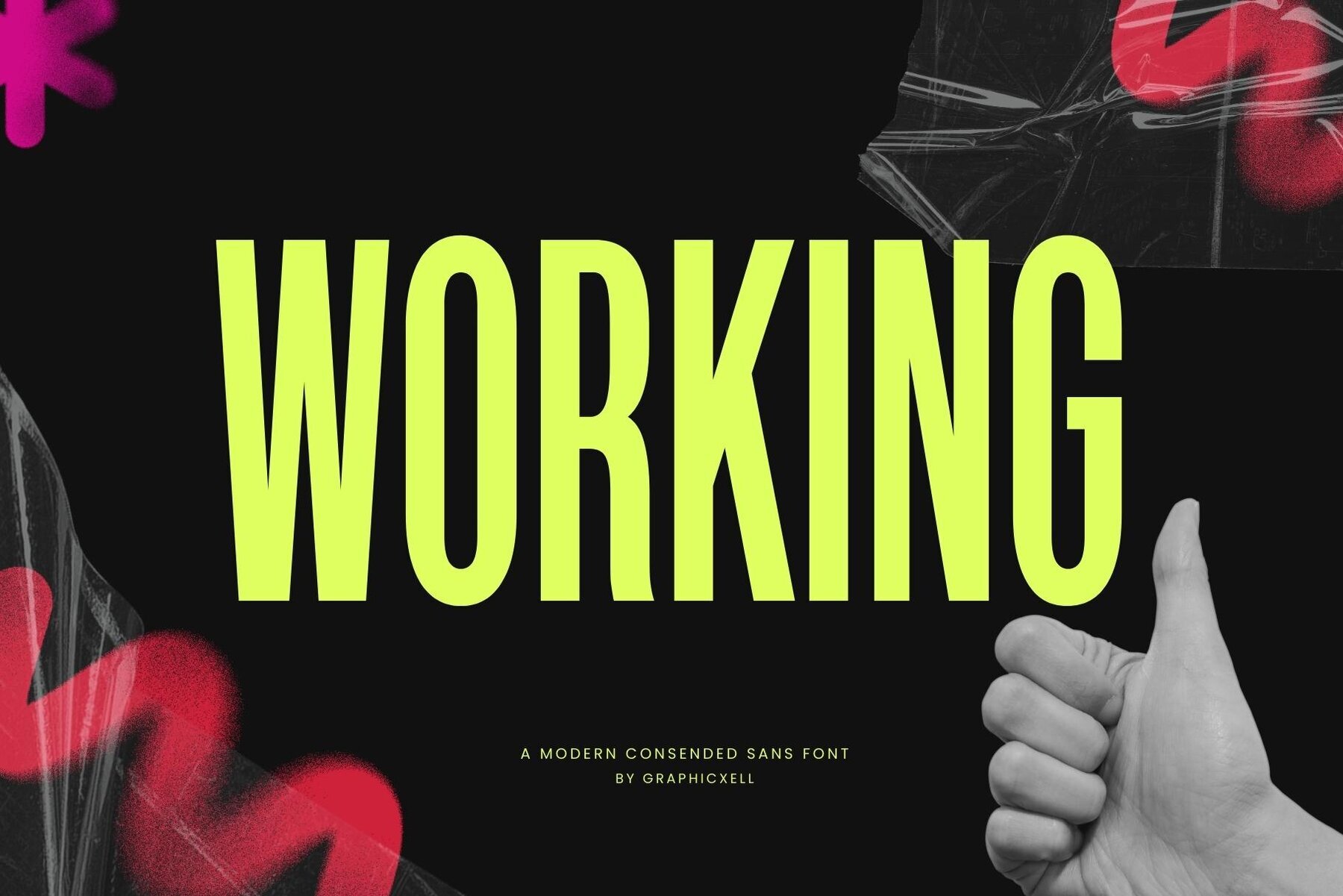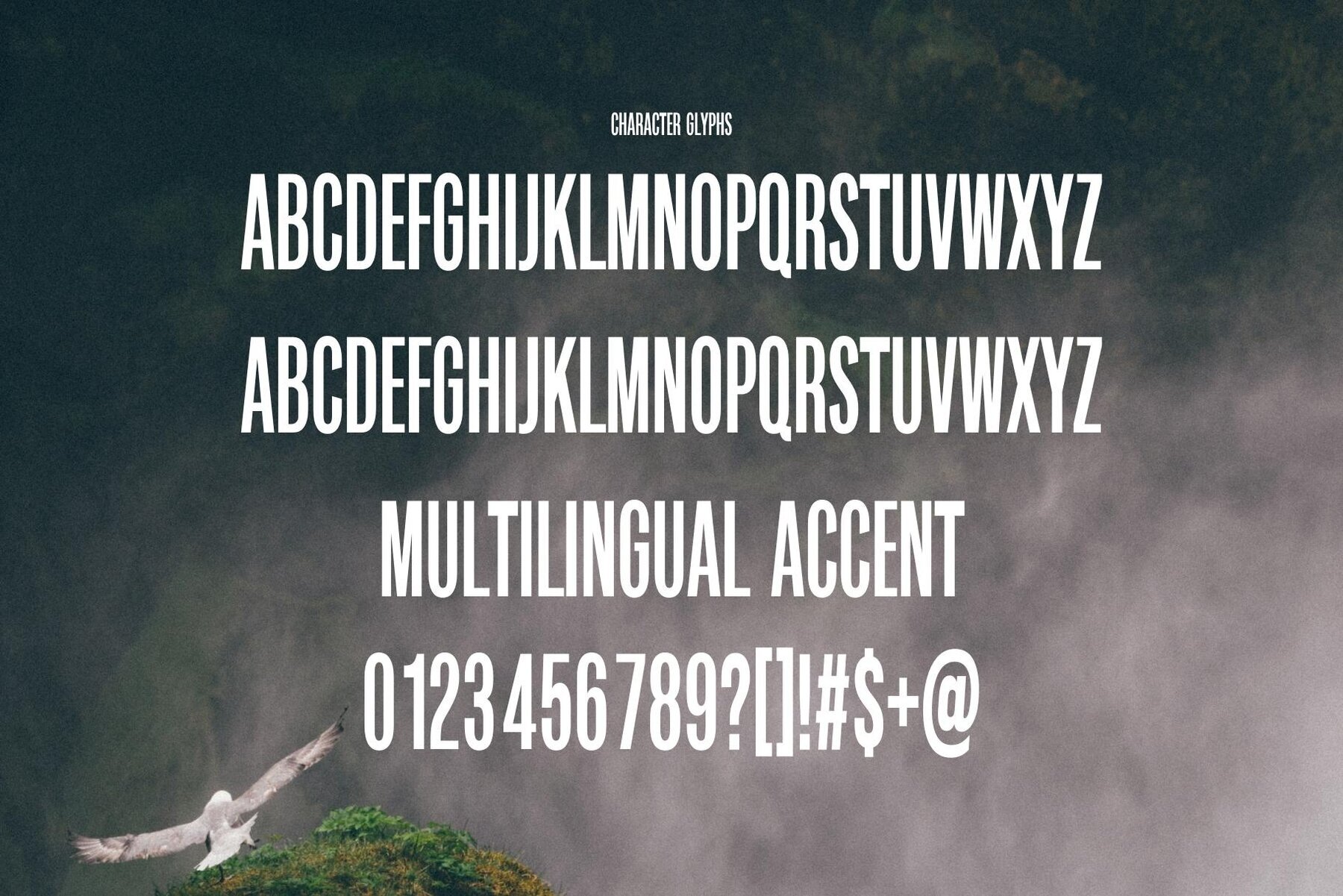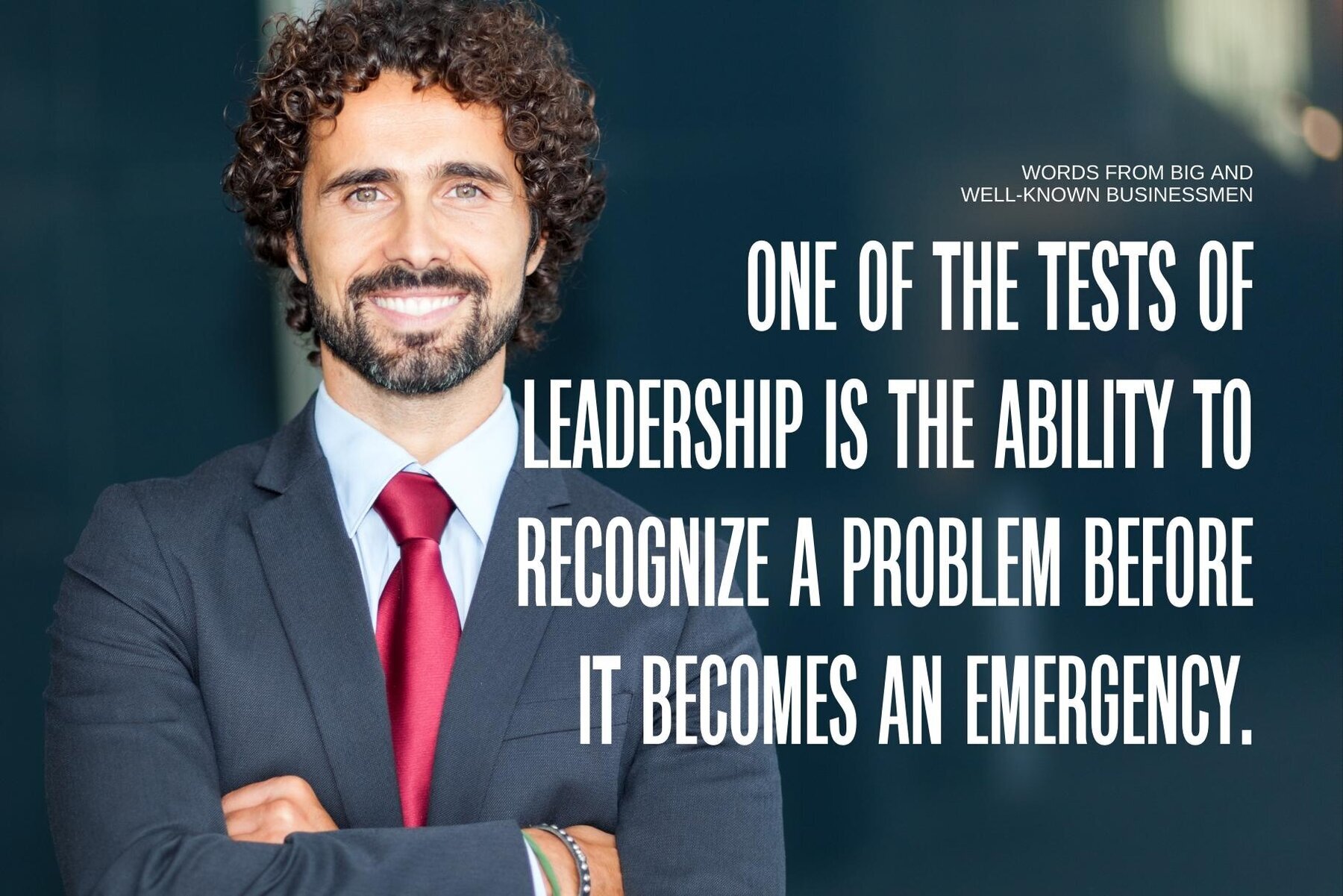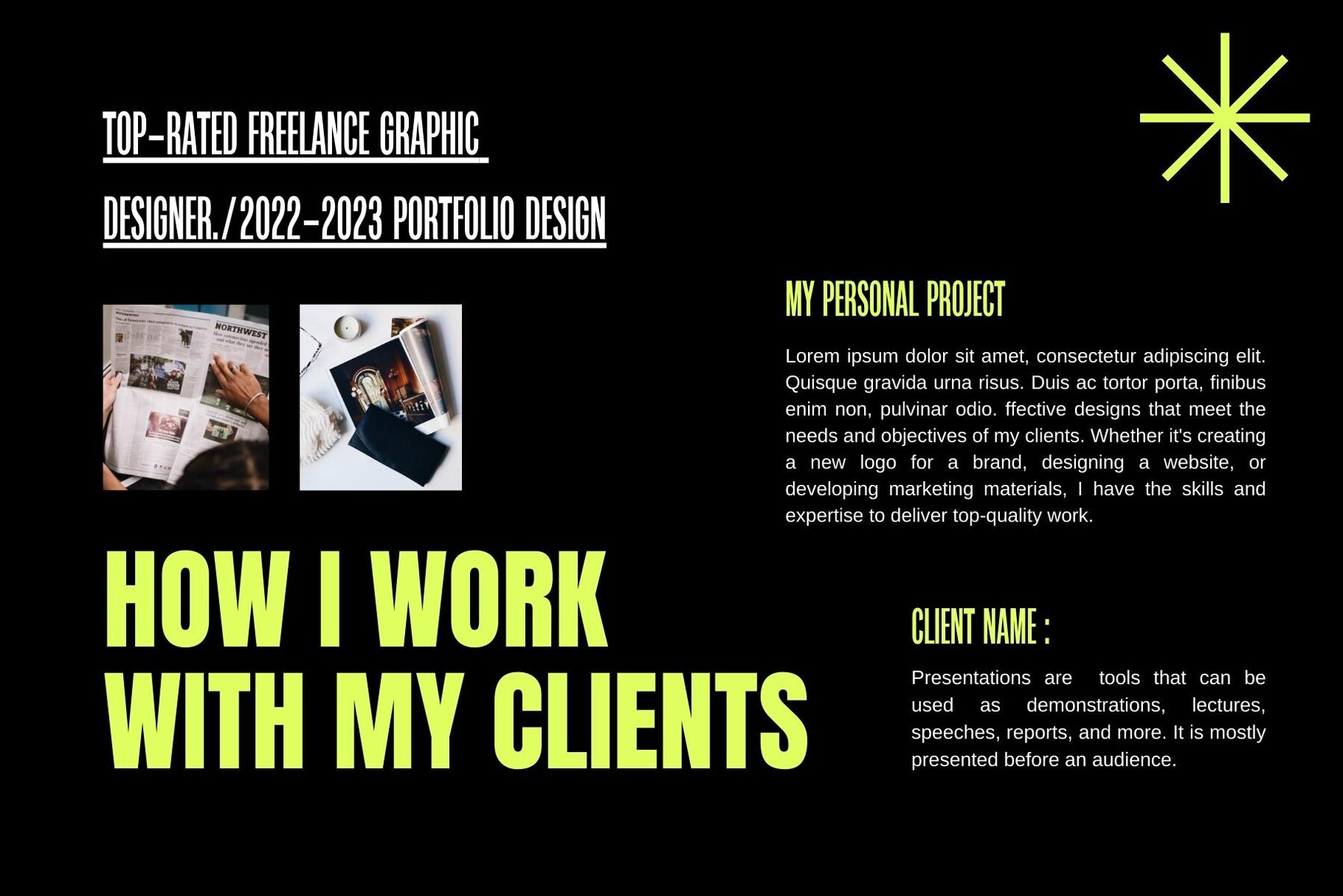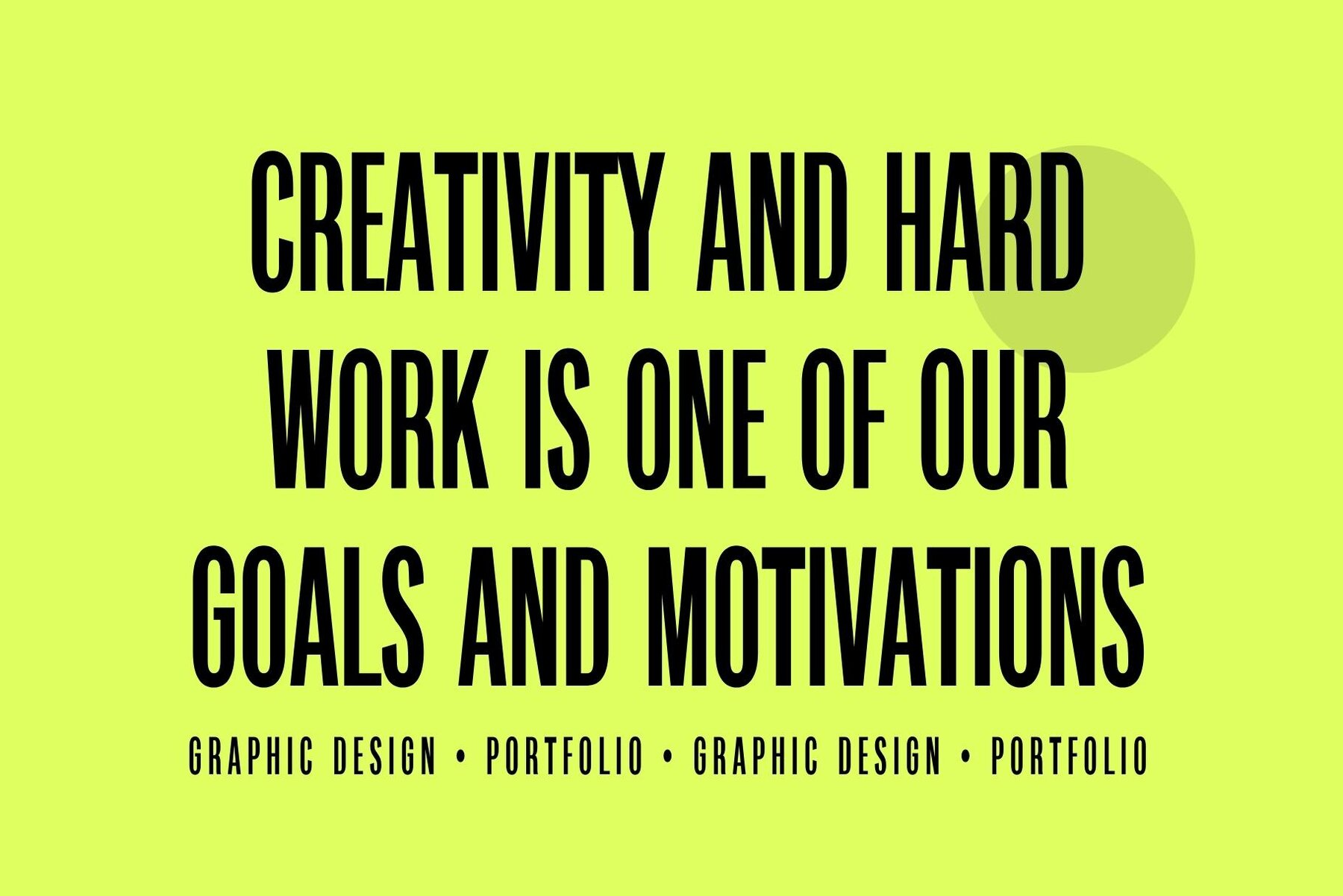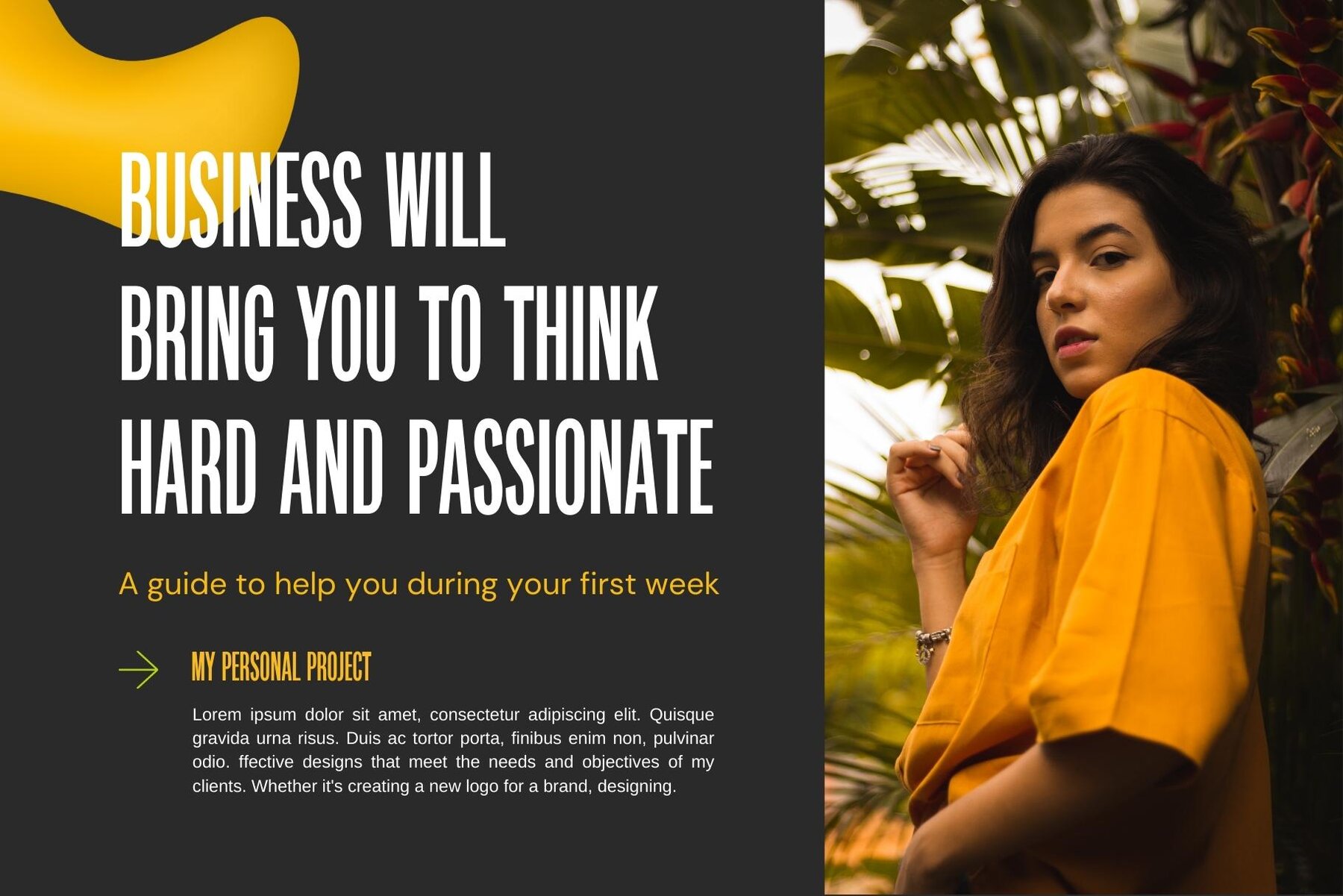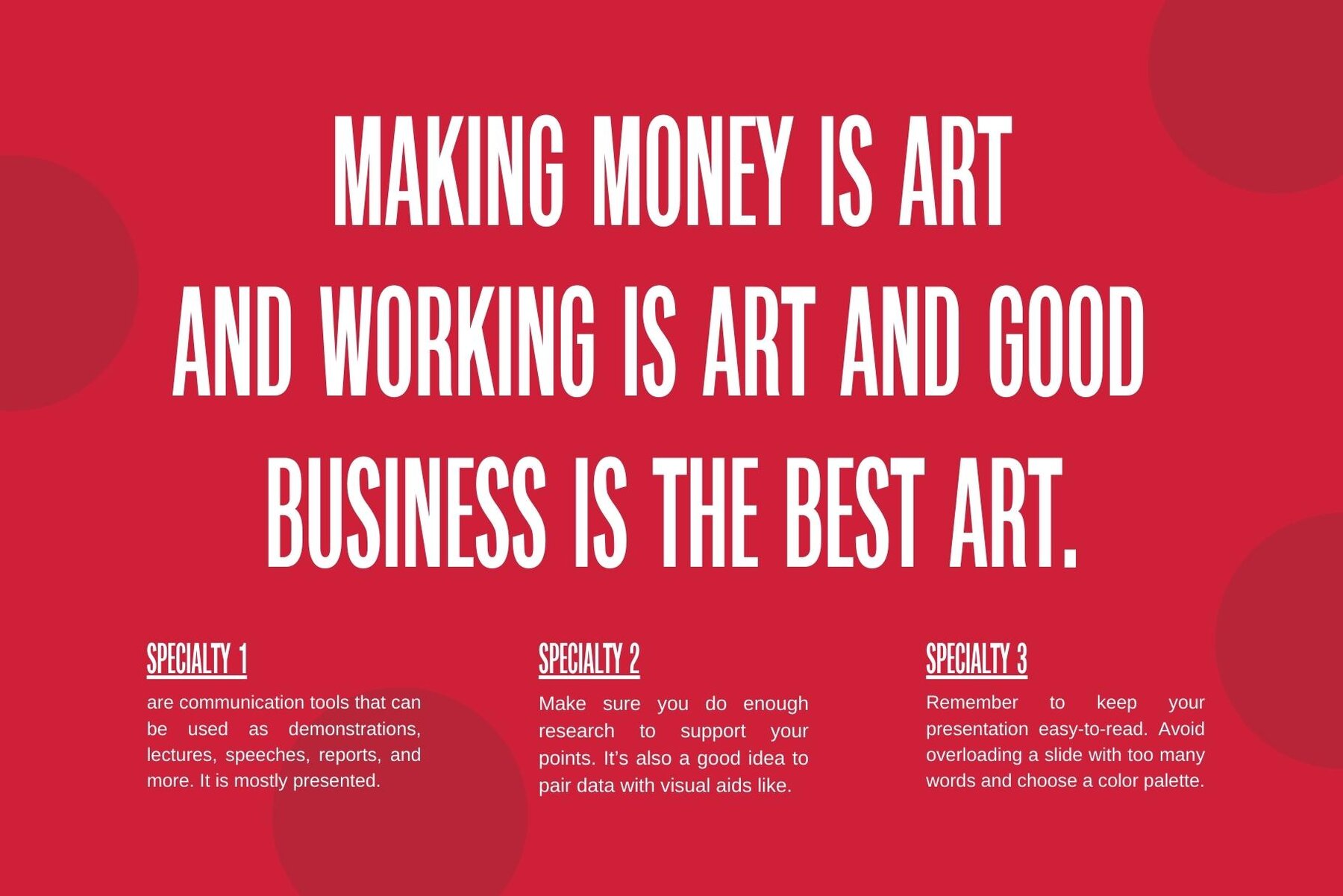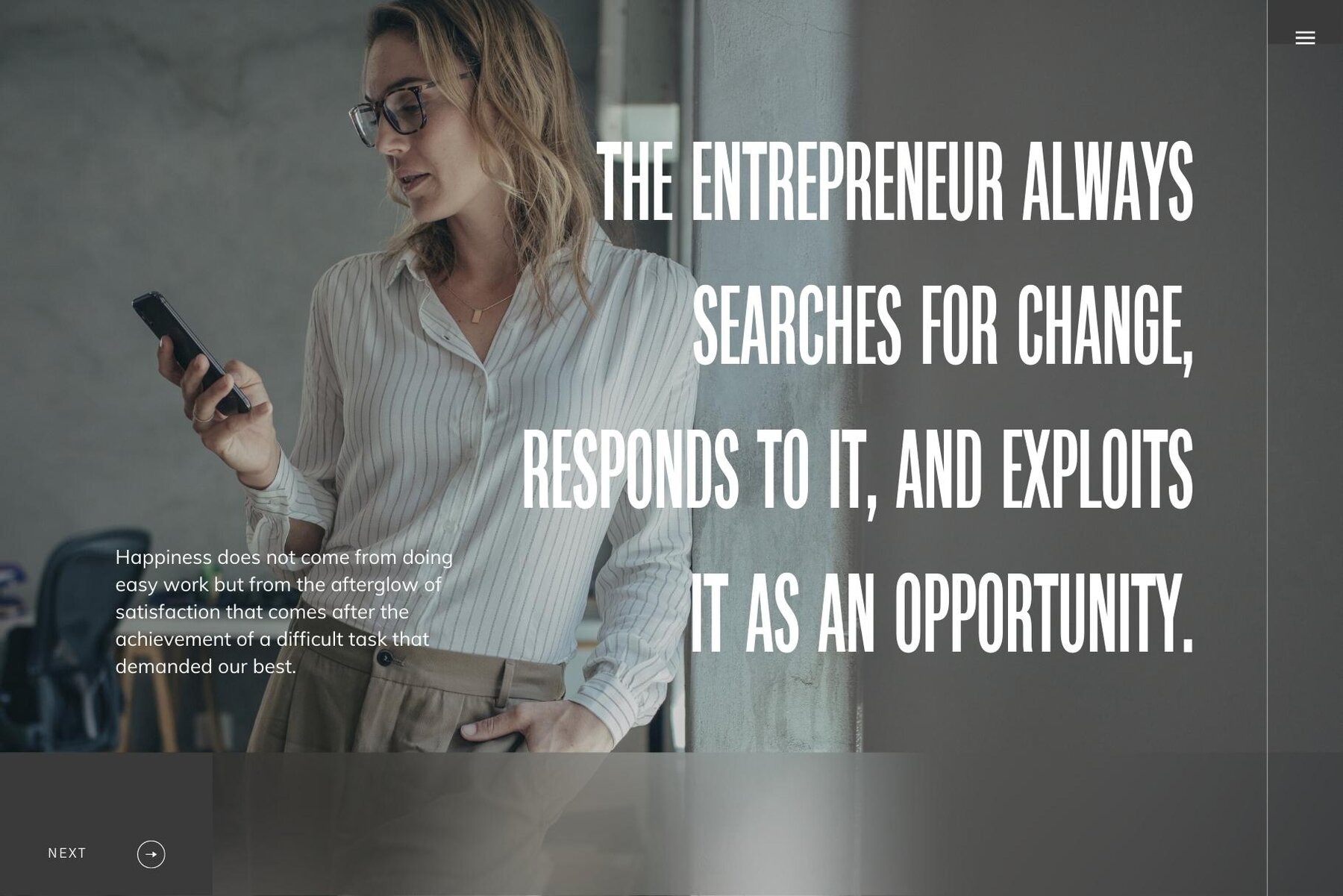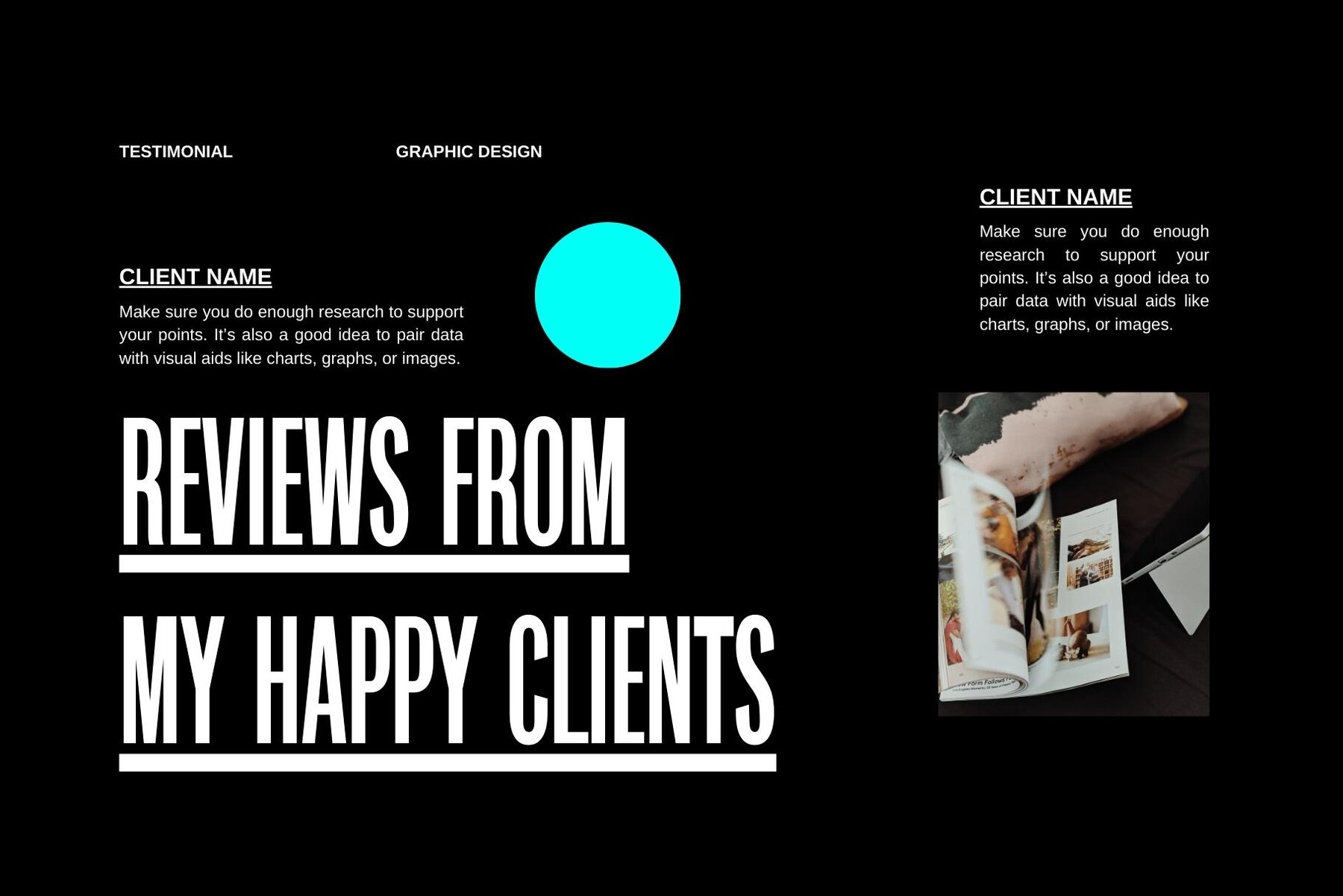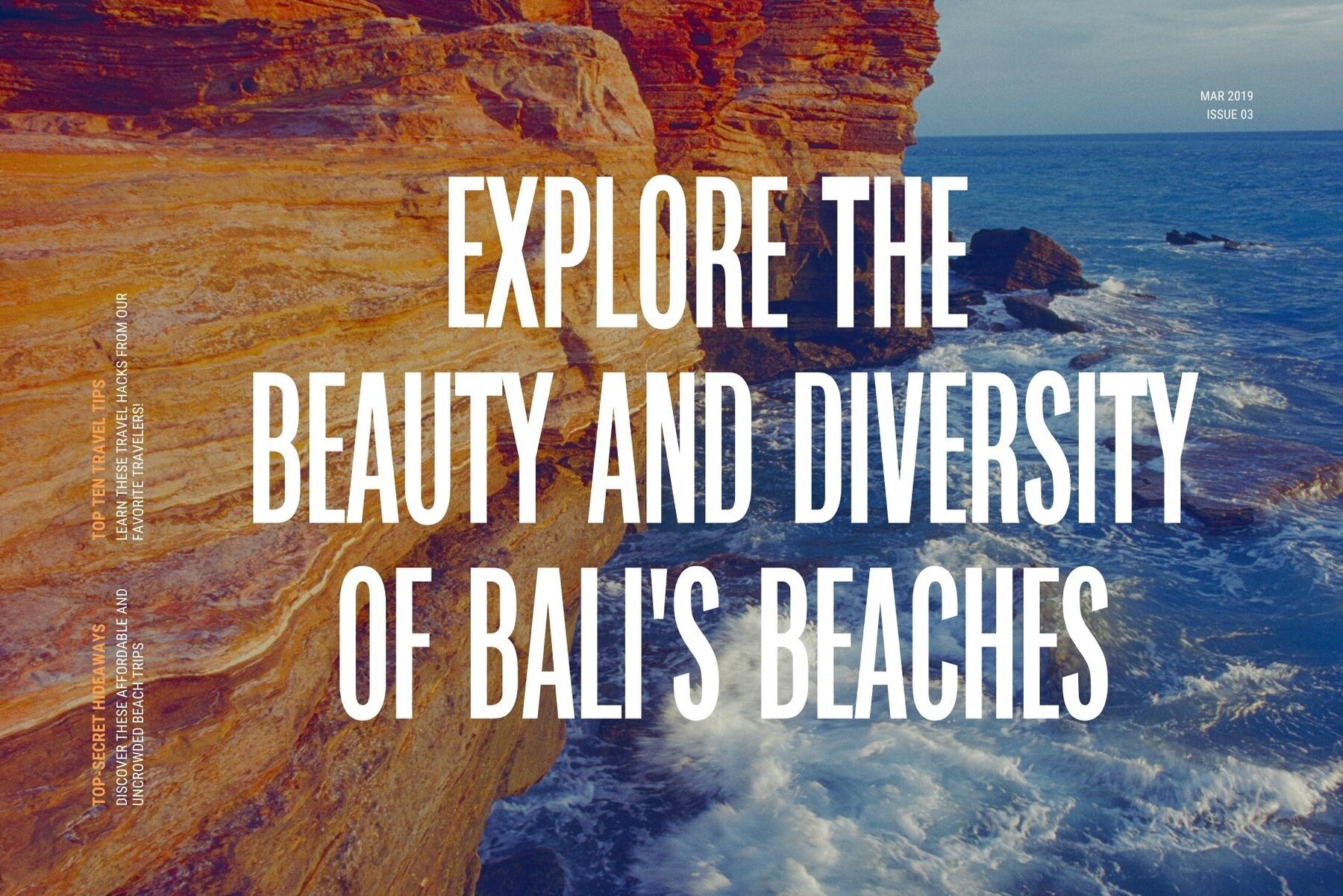
Working Font
Working Regular
Graphicxell offers a unique approach to minimalist logo design, perfect for creating visually compelling templates, brochures, videos, and more. Tailored for those in advertising, branding, and elegant crafting, this style provides versatility for various design projects, from logos to beauty design.Graphicxell: Minimalist Logo Design Inspiration
Features and Applications